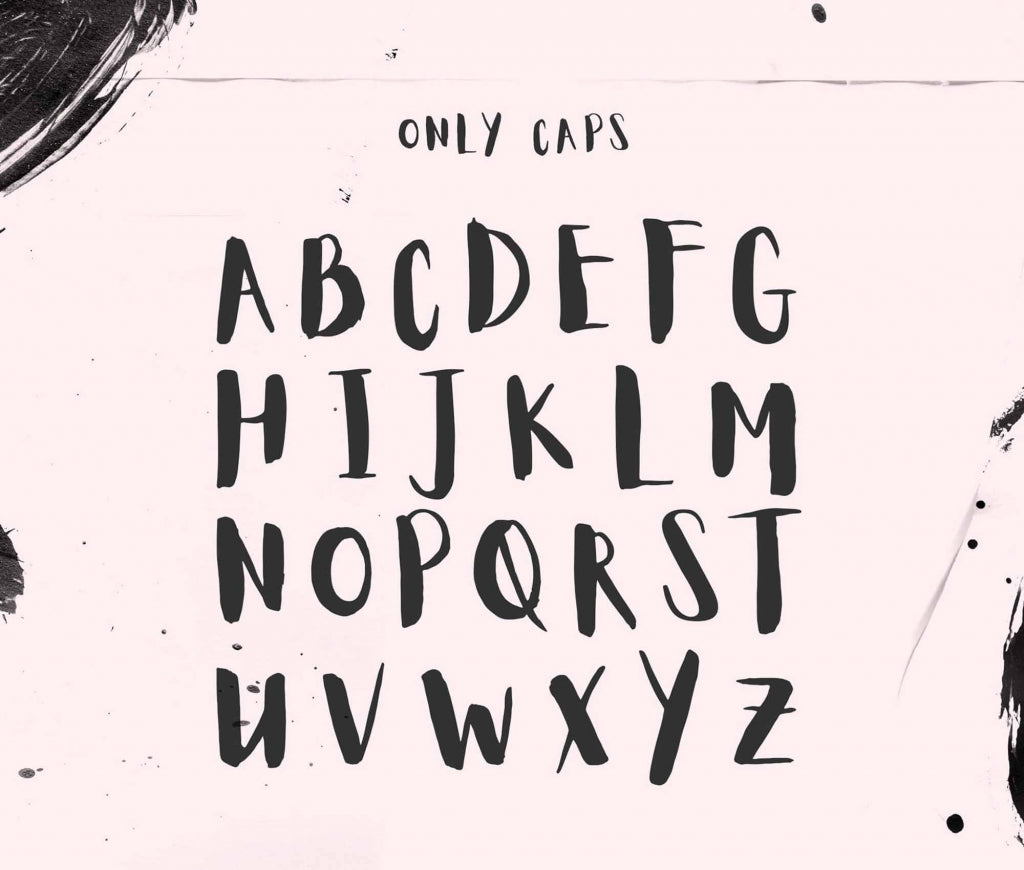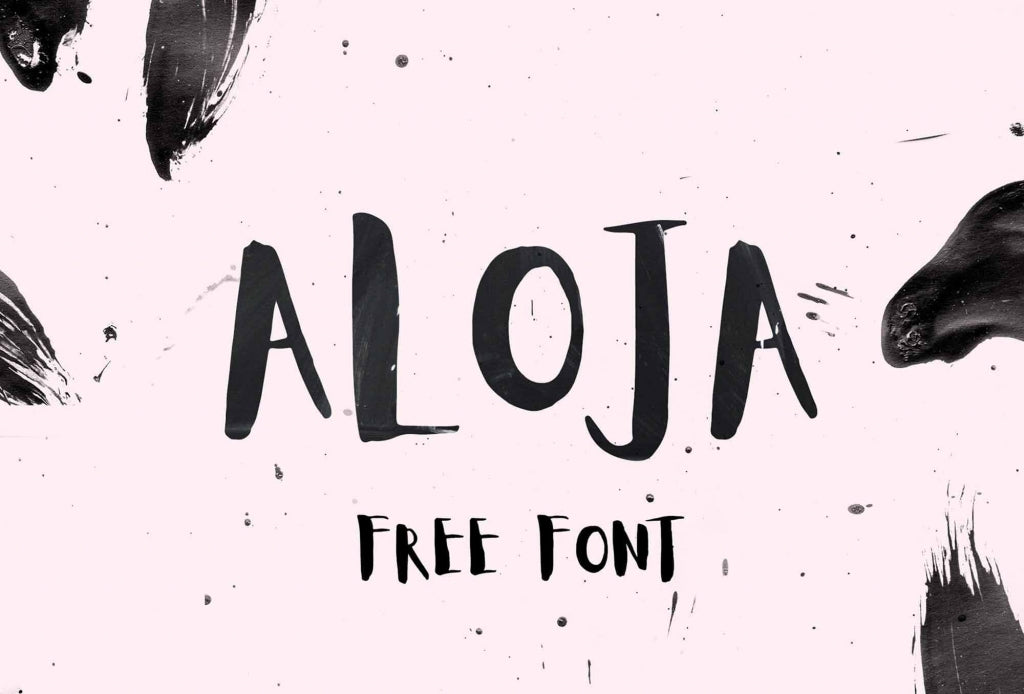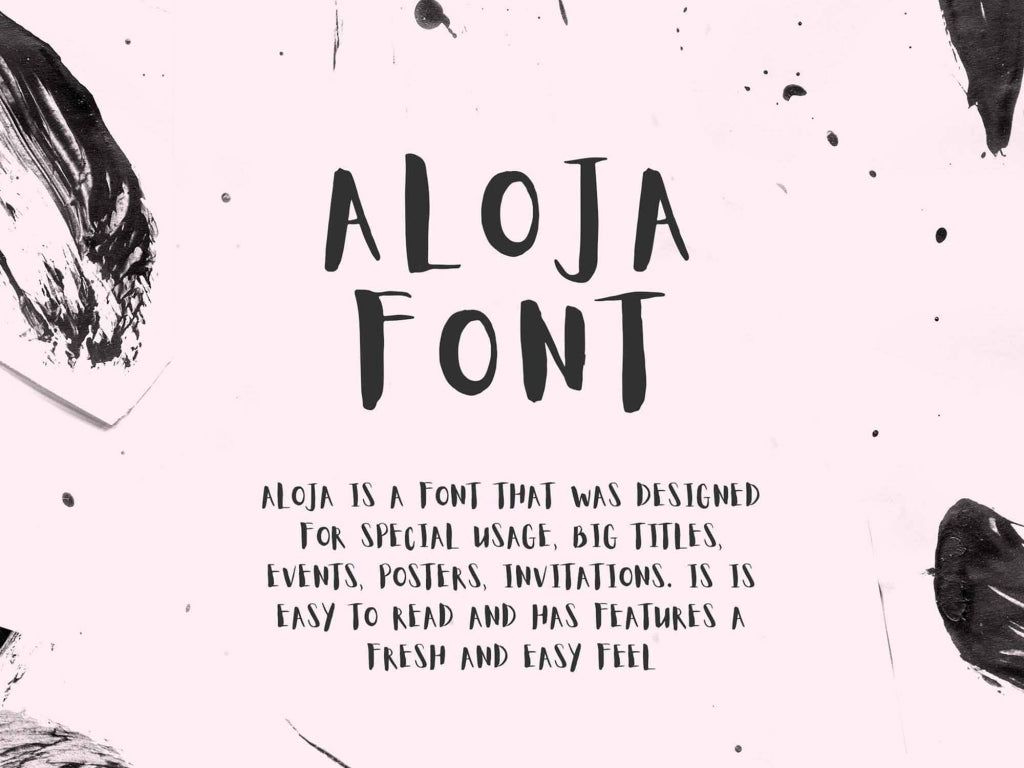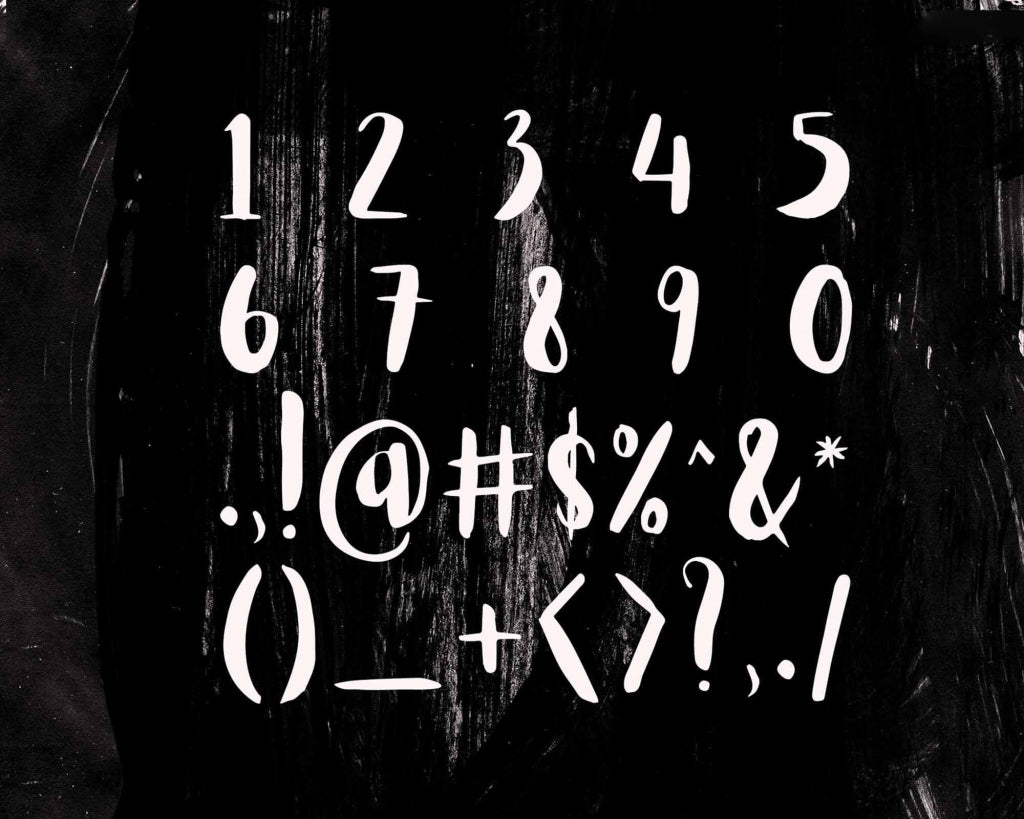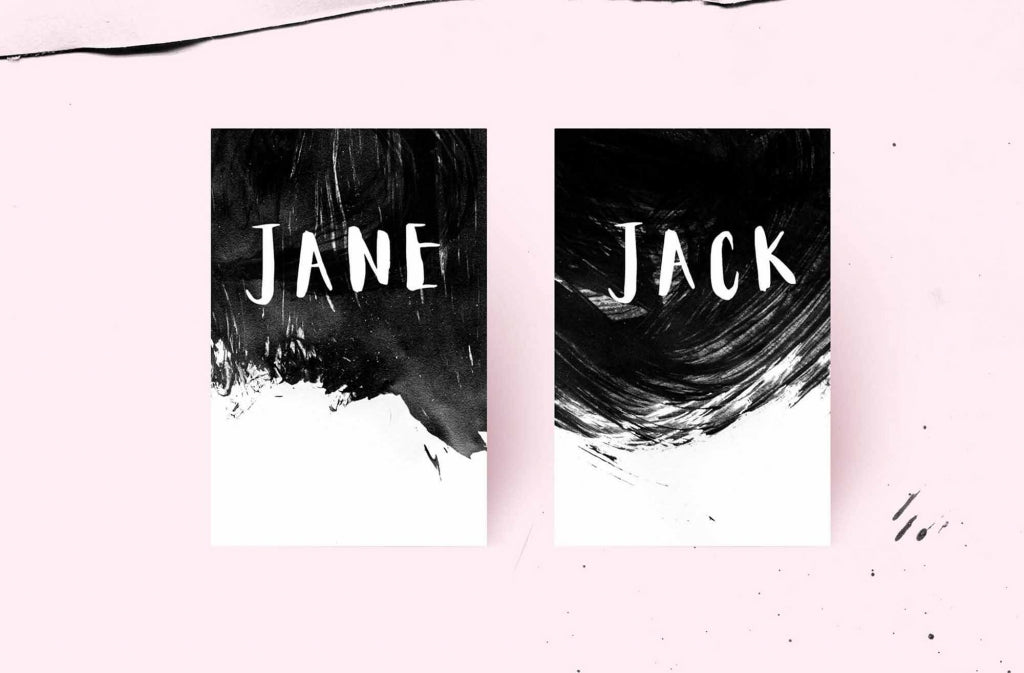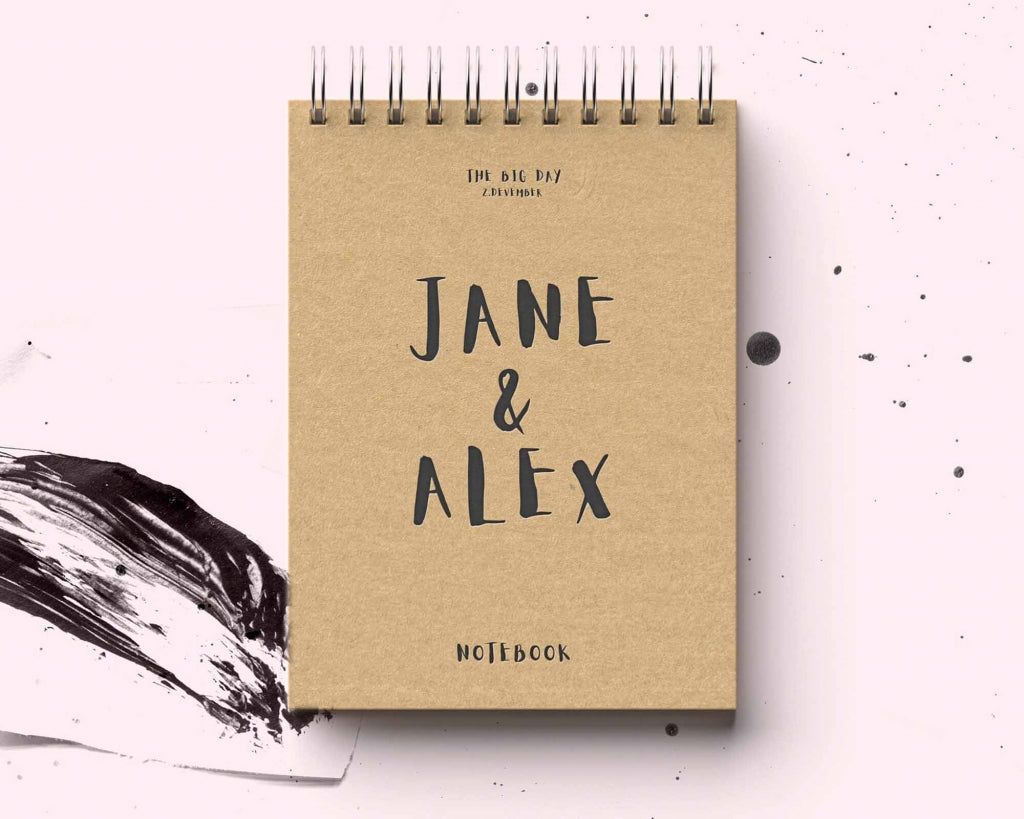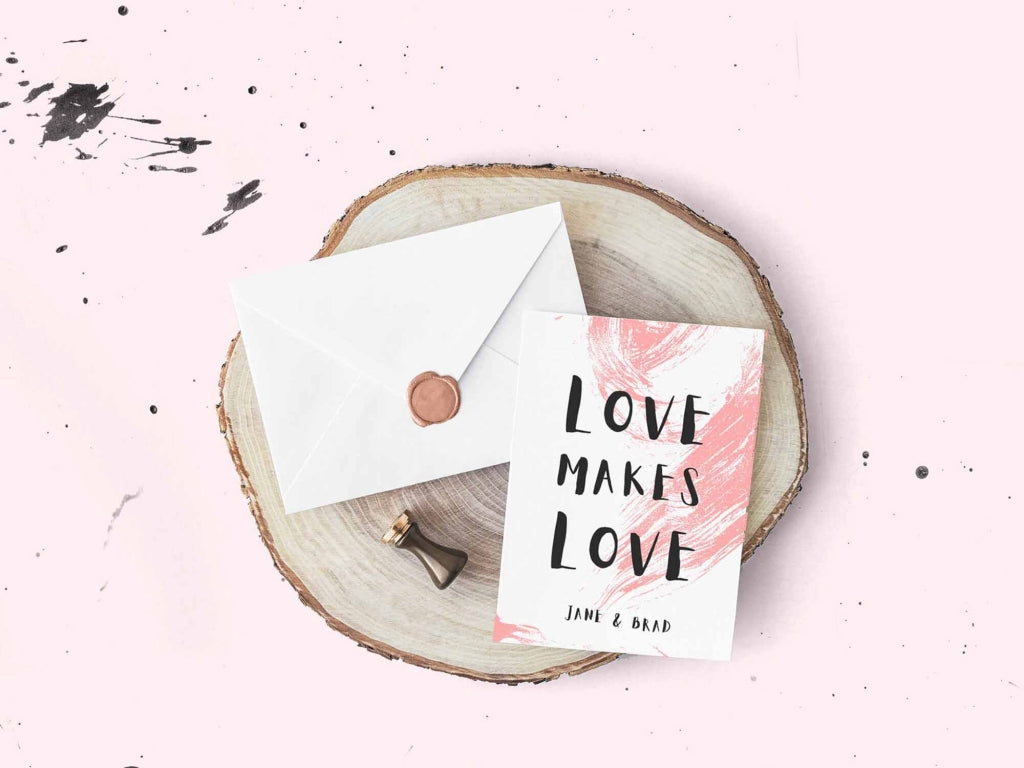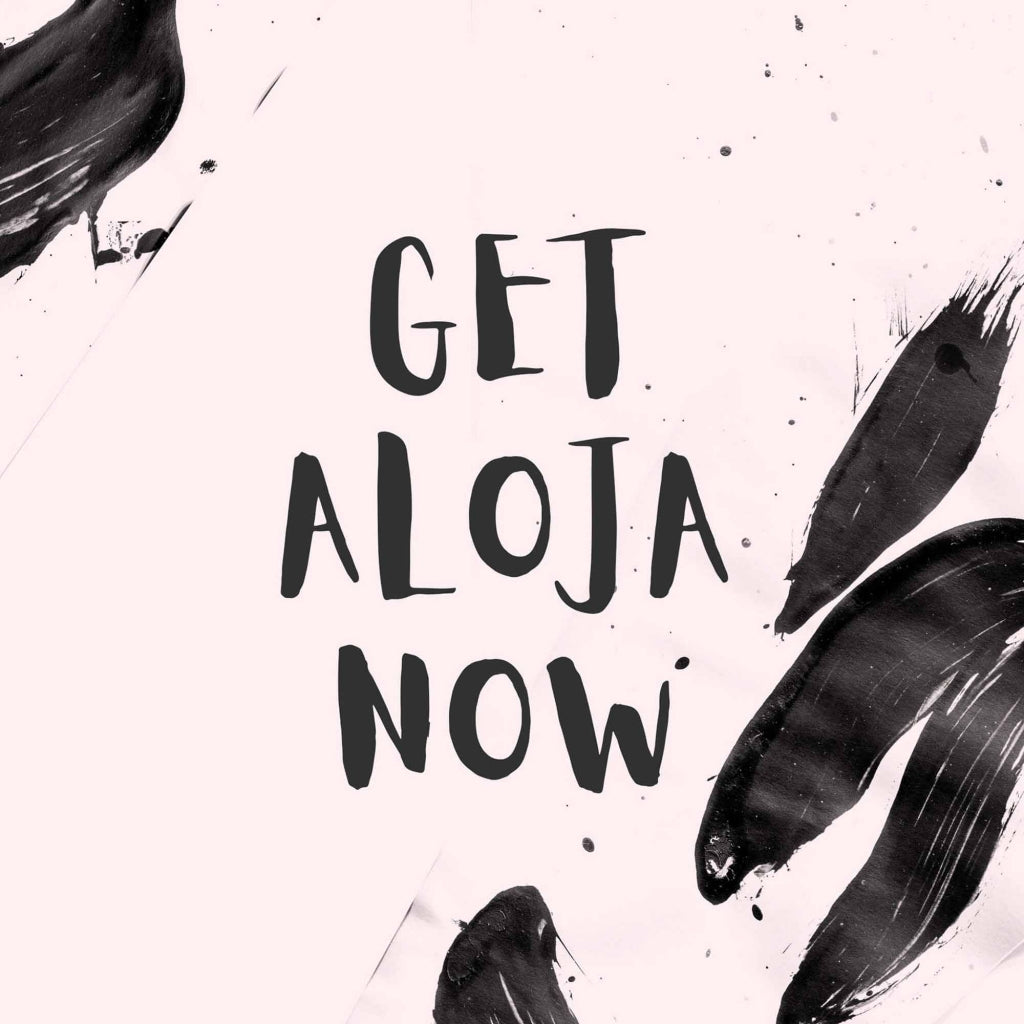
Aloja Handwritten Font
It has been rightly said that the beauty of type lies in its utility; prettiness without readability serves neither the author nor the reader. Strike the correct balance of utility and beauty in your design projects with Aloja, a playful handwriting font designed by Ieva Mezule and Krisjanis Mezulis in association with WildOnes Design.
Aloja takes great pride in its superior readability and the fresh, easygoing feel it brings to the table. This only caps typeface comes with numbers and punctuations, making it a great choice for big titles, events, posters, invitations and website titles. Each letter has been hand drawn with a thin brush on acrylic paper, imparting the typeface with visual uniqueness. The letters give a perception of bounciness, making it stand out in an ocean of content with a certain playfulness and confidence. Whether you choose to use Aloja for cards, stationery design, branding or headlines, it will bring a sense of joy and creativity to your designs, and who can ever go wrong with a bit of positivity?